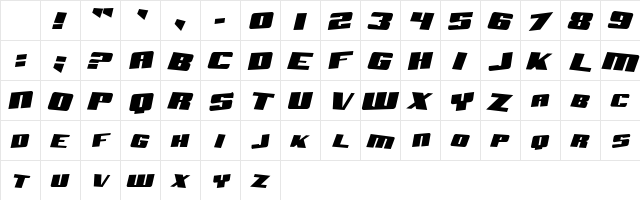
Aftershock Debris Solid Italic Free Font
Aftershock Debris Solid Italic
Design Context for Aftershock Debris Solid
Aftershock Debris Solid is a composed and adaptable typeface that performs quietly and consistently across a wide range of design contexts. The slanted form adds forward momentum and visual energy.
Pro Tip: Use Aftershock Debris Solid for emphasis, pull quotes, and subheadings where its slanted energy can add rhythm to the layout.